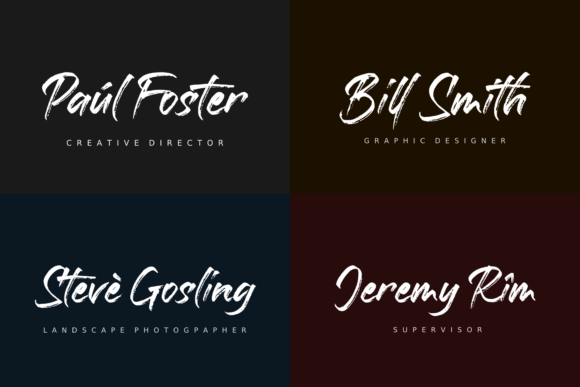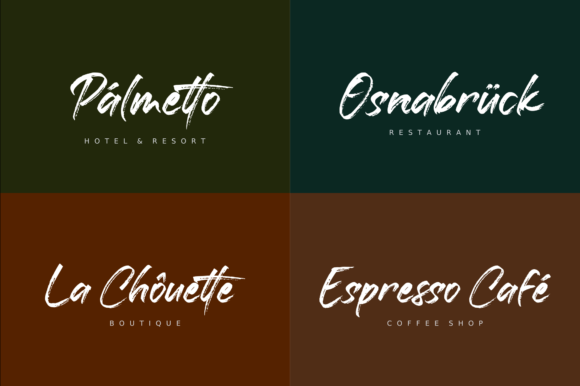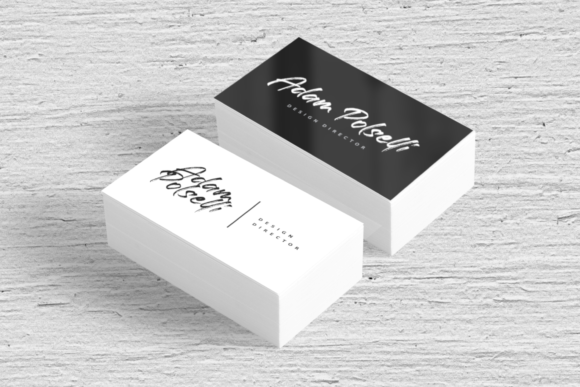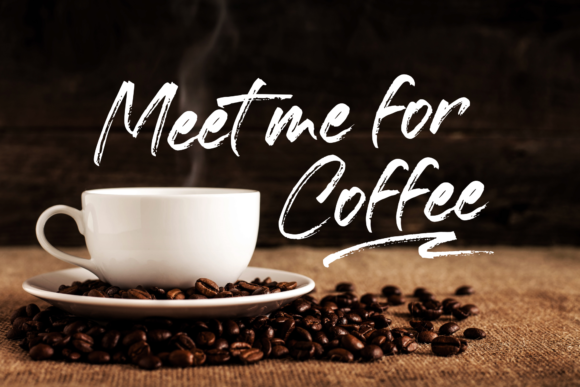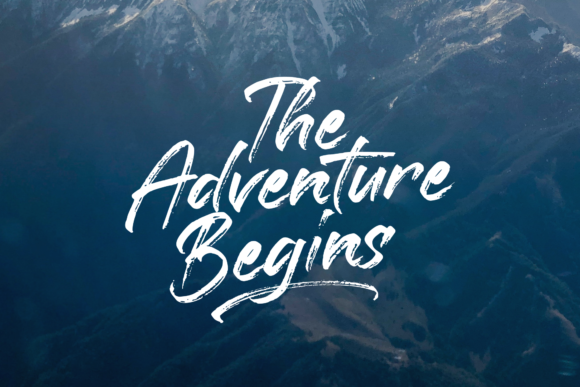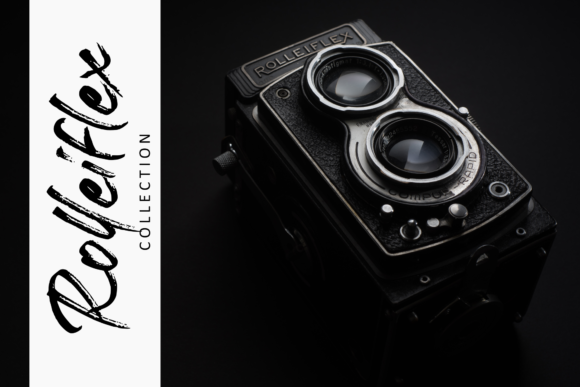
Introducing Bill Smith Font: The Ultimate Brush Script for Personalized Designs
Are you tired of using the same old fonts for your design projects? Do you want to add a touch of personality and uniqueness to your creations? Look no further than the Bill Smith Font! This fast writing brush script font is perfect for designers and crafters who want to give their projects a personalized appearance. With its textures and swashes, Bill Smith Font is sure to take your designs to the next level.
What is Bill Smith Font?
Bill Smith Font is a brush script font that mimics the look of fast writing with a brush. It has a unique, hand-crafted feel that is perfect for creating personalized designs. The font comes with textures and swashes, which allow you to add an extra layer of creativity to your projects. Whether you’re designing a logo, a poster, or a social media graphic, Bill Smith Font is the perfect choice.
Key Features of Bill Smith Font
- Fast writing brush script: Bill Smith Font has a unique, fast writing brush script style that gives your designs a personalized touch.
- Textures and swashes: The font comes with textures and swashes, which allow you to add an extra layer of creativity to your projects.
- Hand-crafted feel: Bill Smith Font has a hand-crafted feel that makes it perfect for creating unique and personalized designs.
Why Use Bill Smith Font?
There are many reasons why you should use Bill Smith Font for your design projects. Here are just a few:
- Add a personal touch: Bill Smith Font allows you to add a personal touch to your designs, making them stand out from the crowd.
- Create unique designs: The font’s unique style and textures allow you to create designs that are truly one-of-a-kind.
- Perfect for crafters: Bill Smith Font is perfect for crafters who want to add a personal touch to their projects, such as handmade cards, scrapbooking, and more.
- Great for designers: The font is also great for designers who want to offer their clients unique and personalized design options.
Here are a few tips and tricks to help you get the most out of Bill Smith Font:
- Experiment with different colors: Try out different colors and color combinations to add depth and interest to your designs.
- Use textures and swashes: Don’t be afraid to get creative with textures and swashes to add an extra layer of personality to your designs.
- Pair with other fonts: Try pairing Bill Smith Font with other fonts to create unique and interesting combinations.